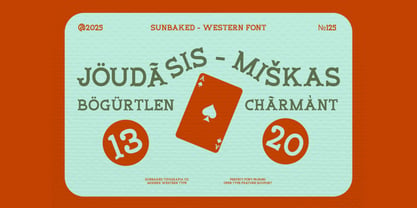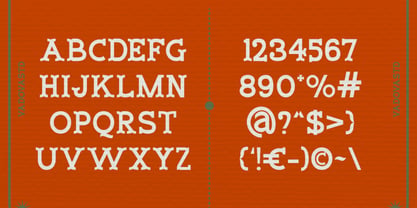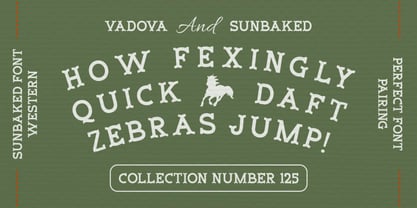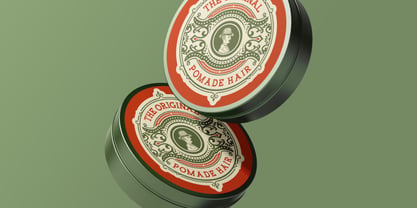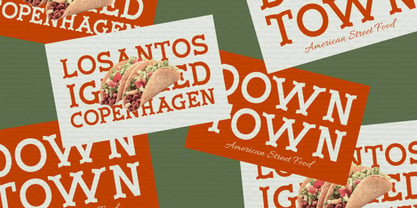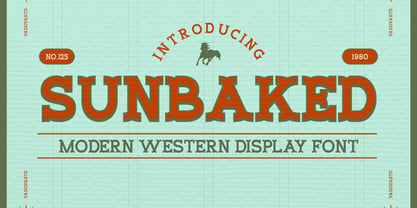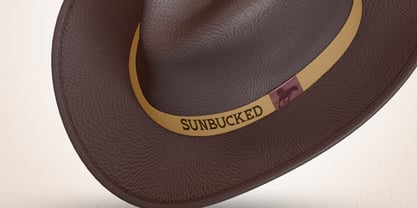
Sunbaked
by Vadova Std
Sunbaked is a ruggedly Modern Western Display Font that captures the essence of the frontier with a contemporary edge. Featuring bold, slab-serif characters with distinctive "spiked" mid-sections, this typeface draws inspiration from vintage wanted posters and classic saloon signage, reimagined for high-impact 21st-century design. The font family includes a full set of uppercase letters, numerals, and essential punctuation, making it a versatile powerhouse for branding projects. This typeface is perfectly suited for projects that require a sense of grit, tradition, and strength. It is highly relevant for the automotive, outdoor apparel, and craft beverage industries. Use it to create striking logos, event posters for rodeos or music festivals, masculine packaging, and social media headers that need to stand out with a bold, authoritative voice.